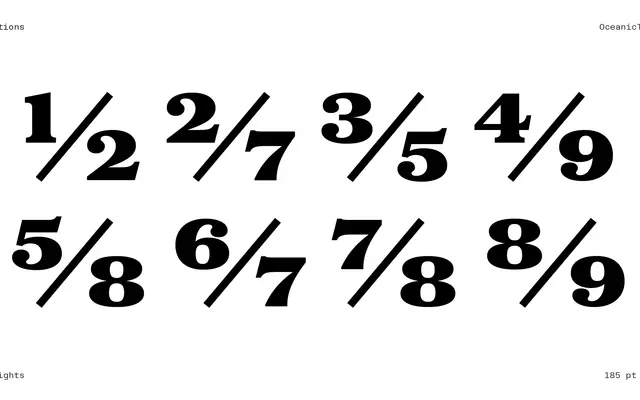
Oceanic Text
A text-optimised serif drawing from fat-face and Scotch Roman traditions, tamed for continuous reading with reduced contrast and subtly eccentric letterforms.
The Text family tones down the expressive quirks of Oceanic Display, reducing contrast and condensing the proportions for comfortable small-size setting. Upright contrast borrowed from Bodoni and Scotch Roman models gives it a period character, while details like the prehistoric-creature 'c' and 'e' add personality without disrupting the reading flow. Ten styles across five weights from Regular to Extrabold cover Latin Extended and Cyrillic, with swash and alternate options in the italic cuts.
Draws from 18th and 19th-century fat faces such as Bodoni and Scotch Romans, adapted with upright contrast and reduced display quirks for continuous text use. The text-optimised cut places it firmly in the transitional serif tradition.